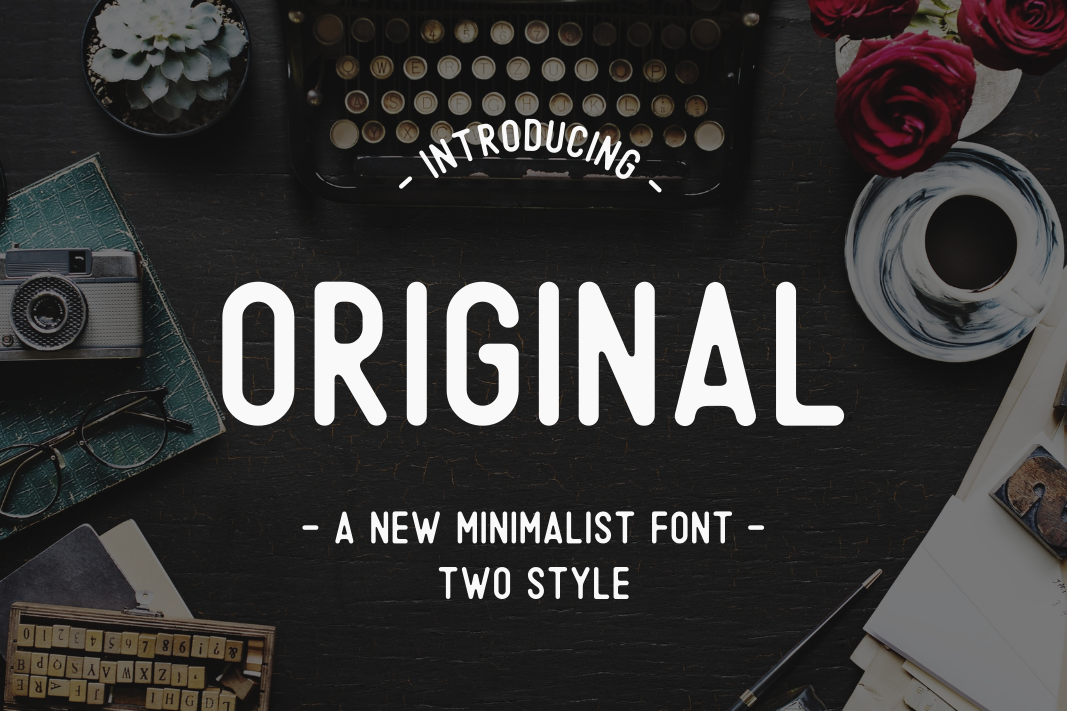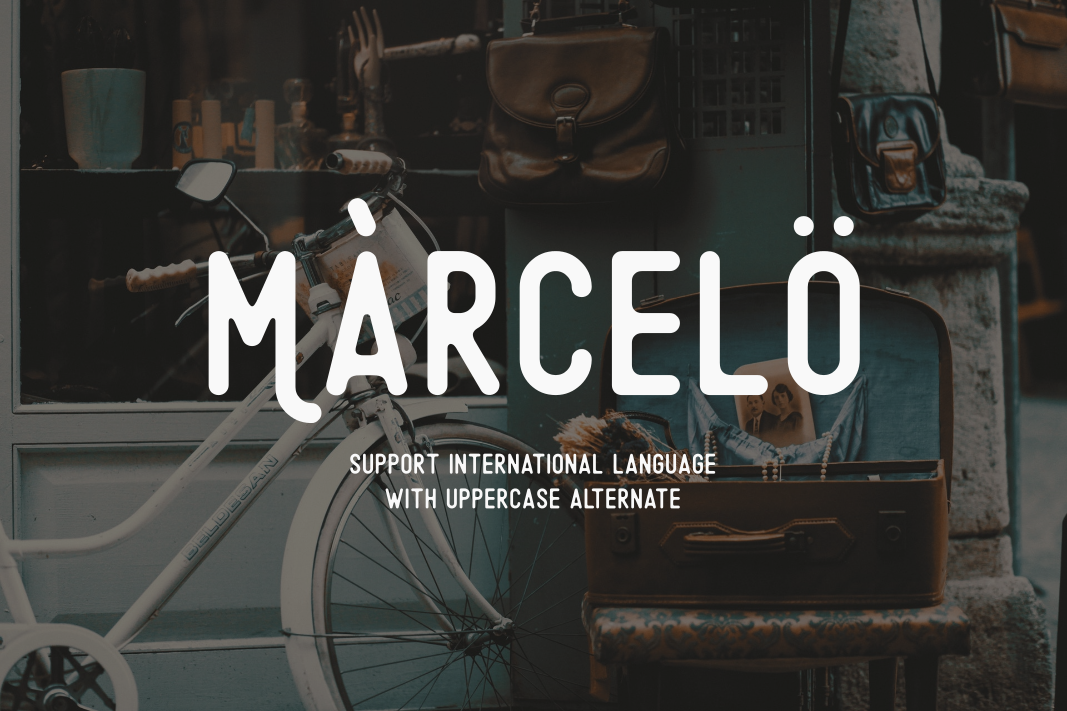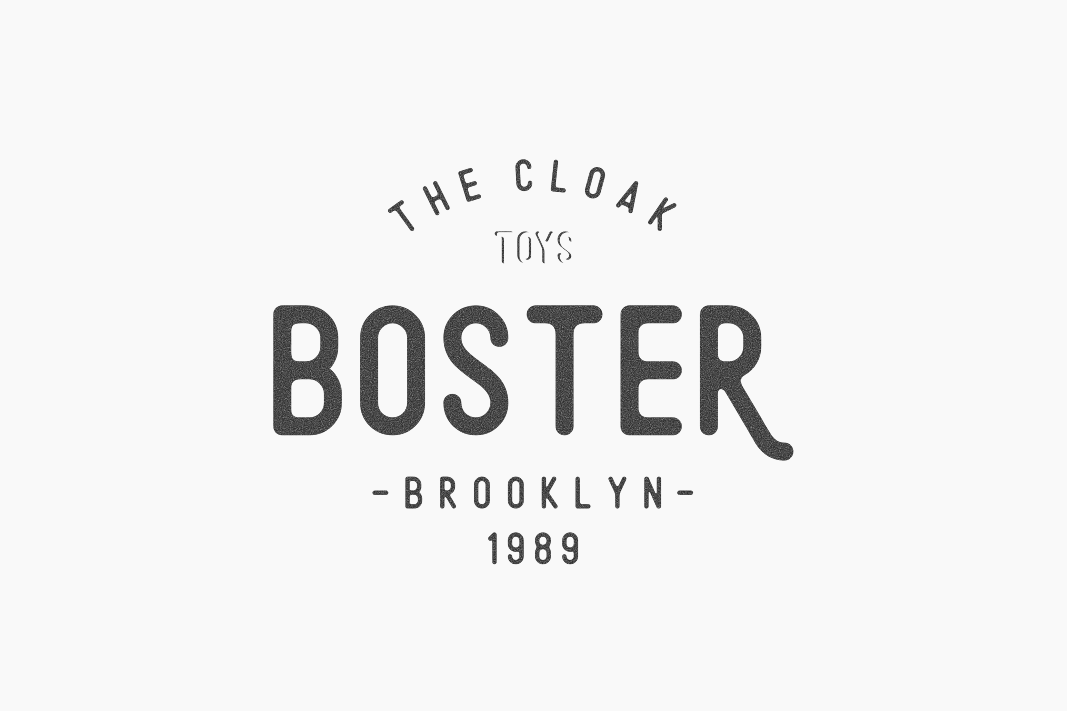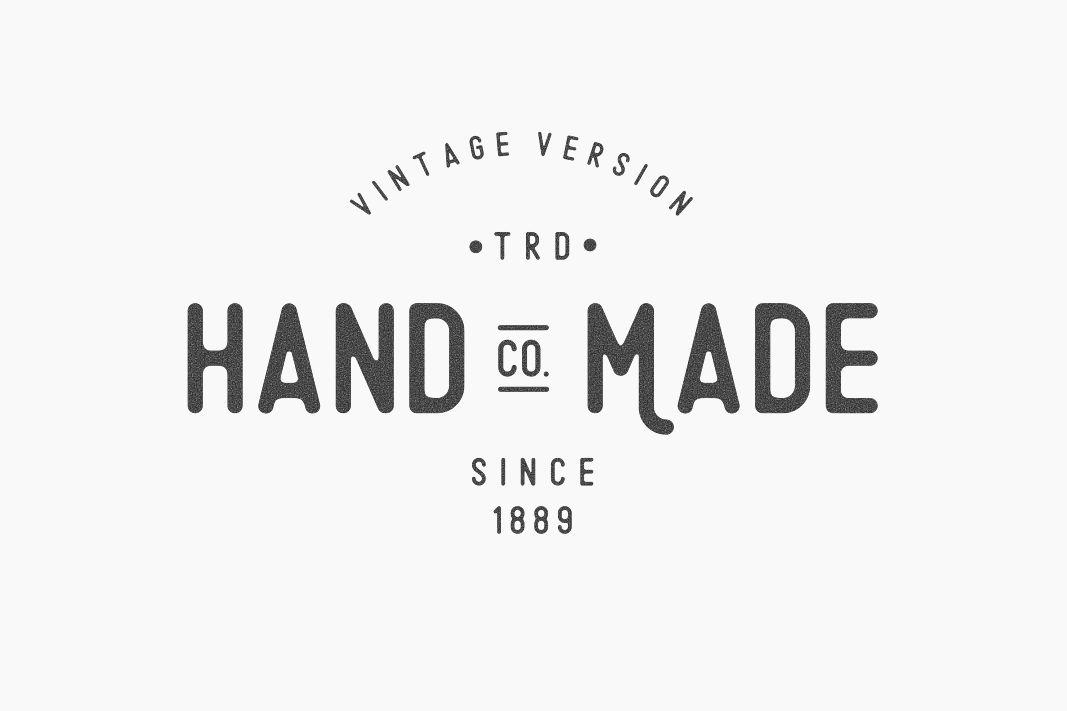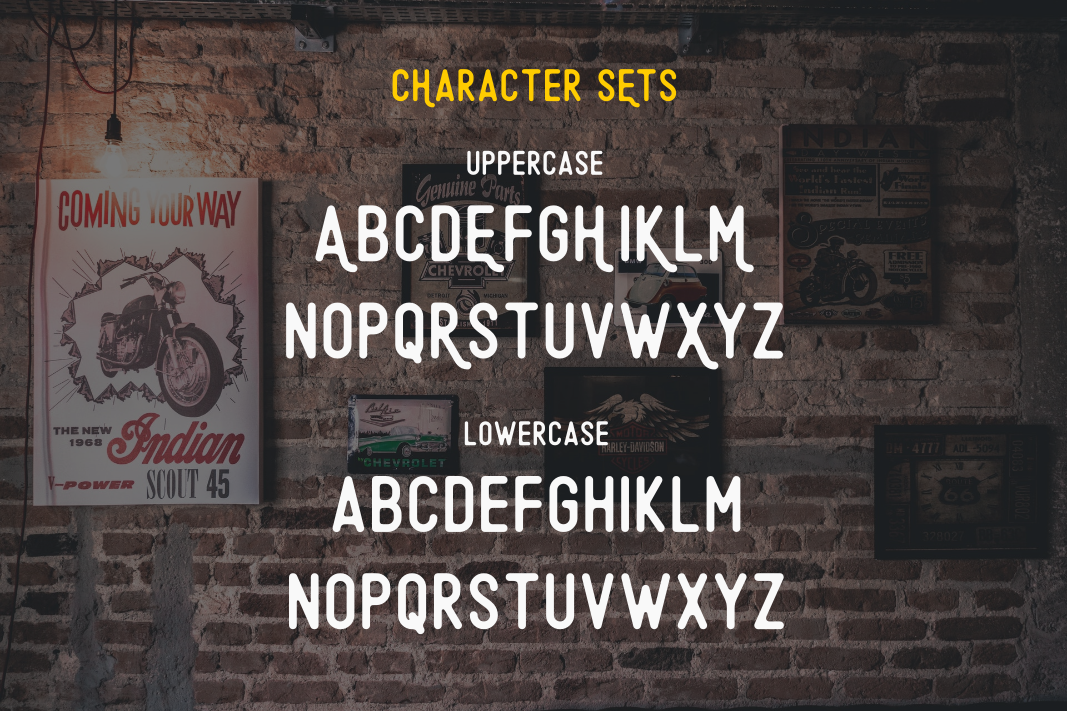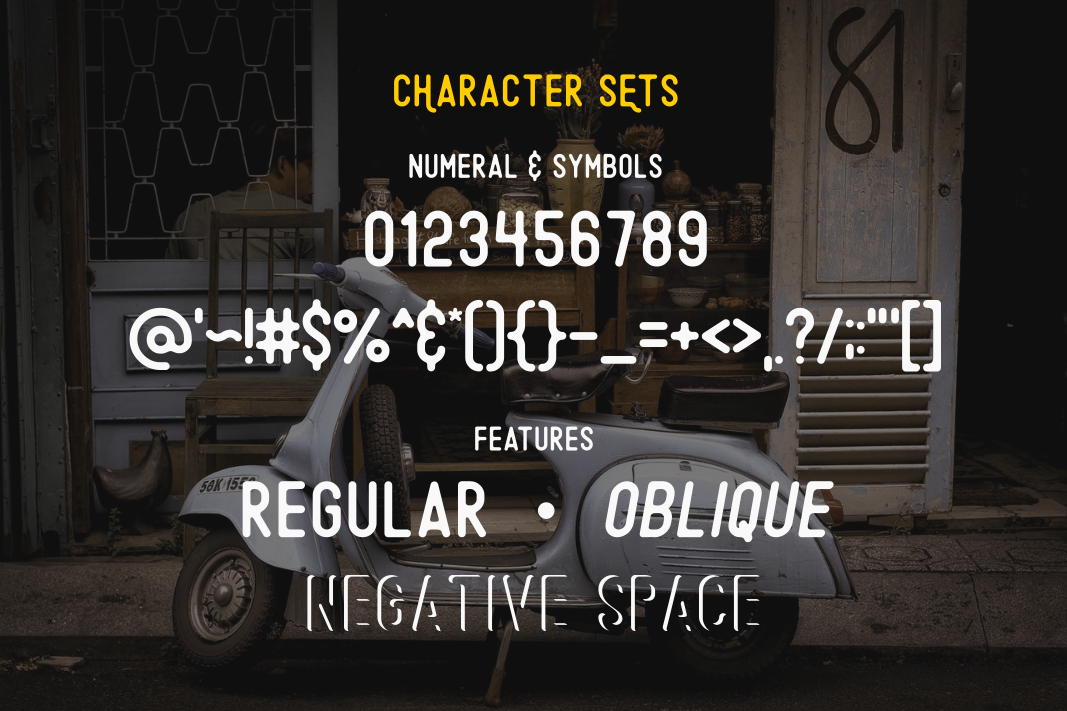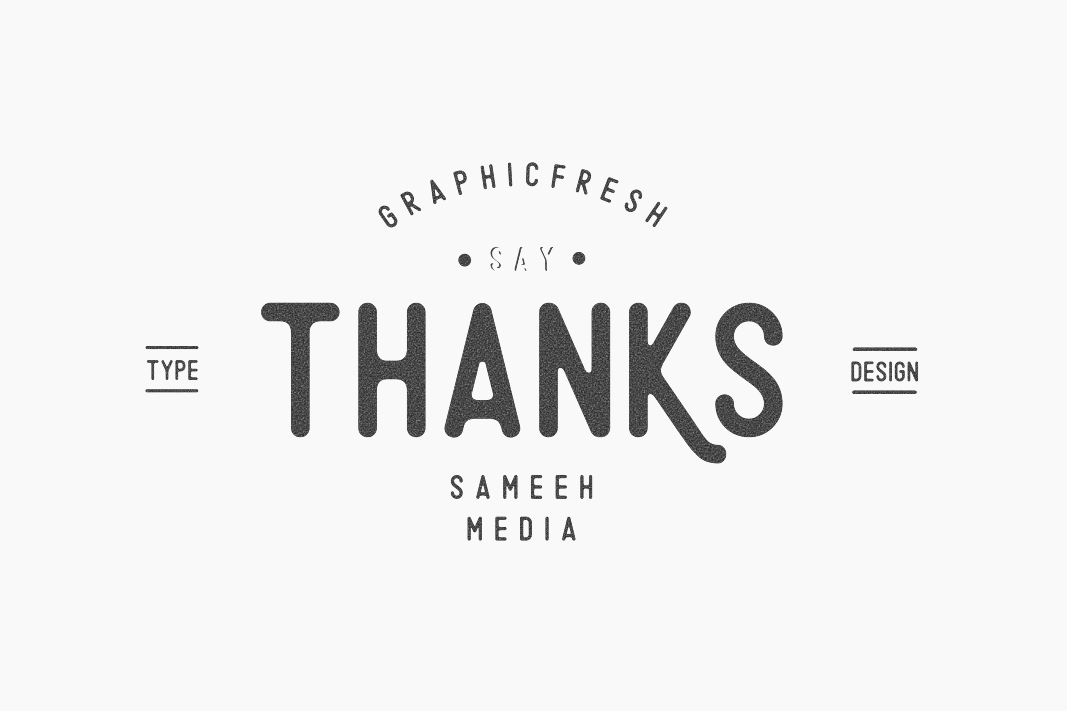
True to its namesake, Original is a beautifully made and unique vintage styled font. Clean, rounded, and well-weighted, Original can be used to add character and depth to your designs.